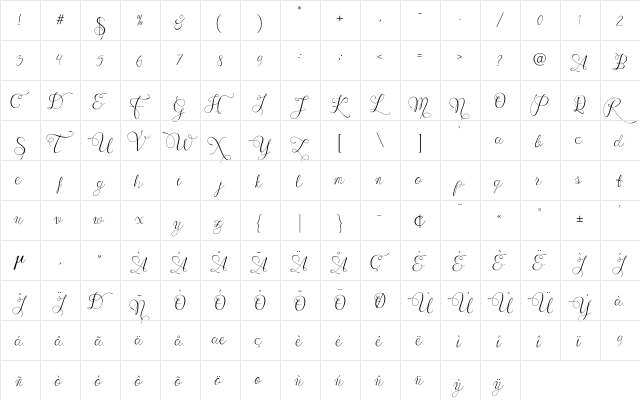
Wenny script Regular
| Foundry | JamalOdin |
| Designer | Jamalodin |
Design Context for Wenny script Typeface
Wenny script flows with the natural rhythm of handwritten lettering, making it ideal for designs that call for warmth and personal expression.
Font Pairing: Combine Wenny script with a simple geometric sans for maximum contrast — the tension between flowing curves and clean structure is a classic typographic pairing.
Pro Tip: Pair Wenny script with a clean sans-serif for supporting text. The contrast between fluid script and geometric structure creates an elegant typographic hierarchy.